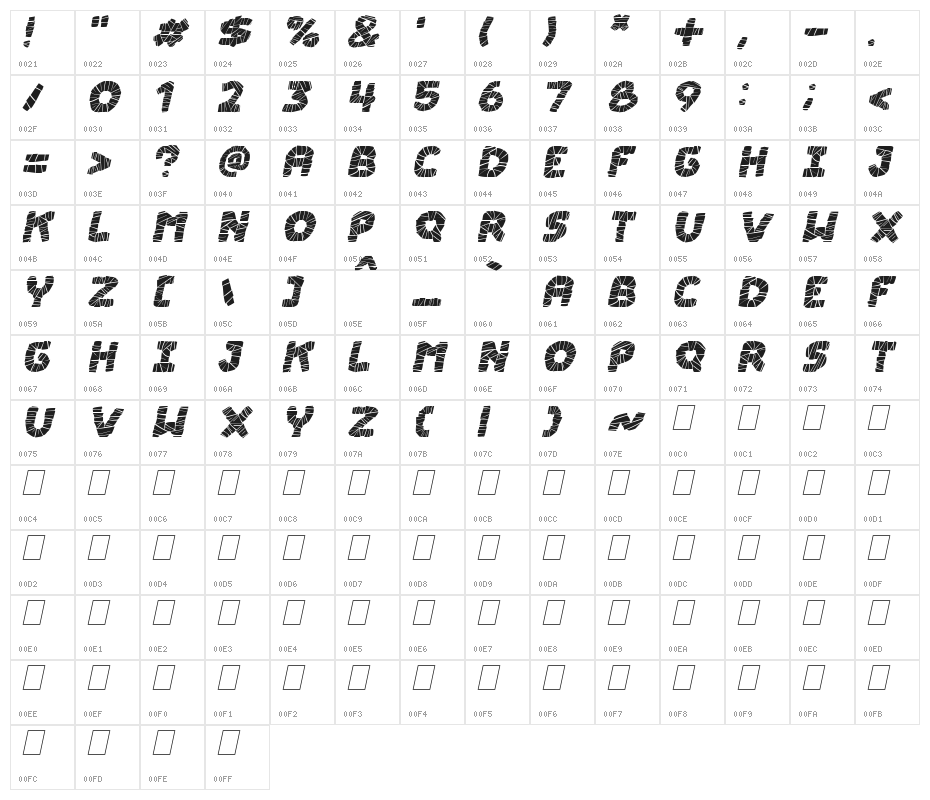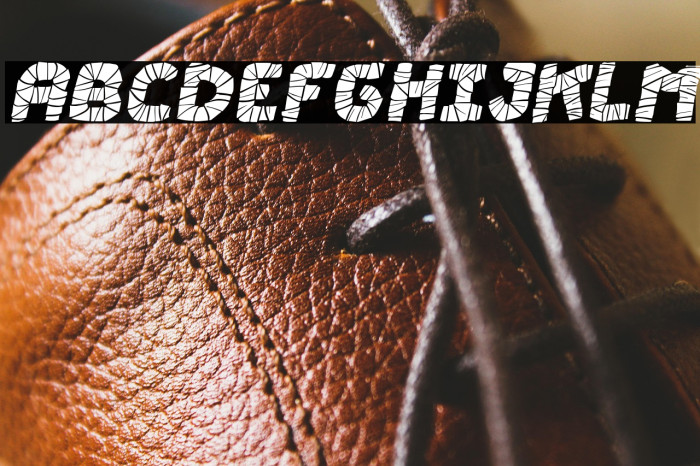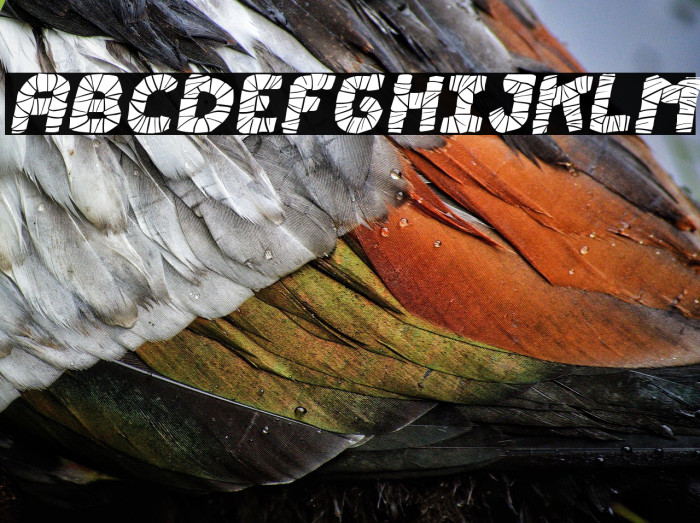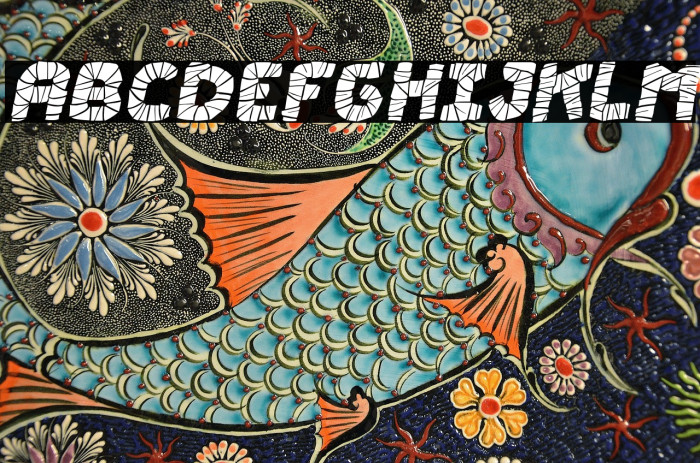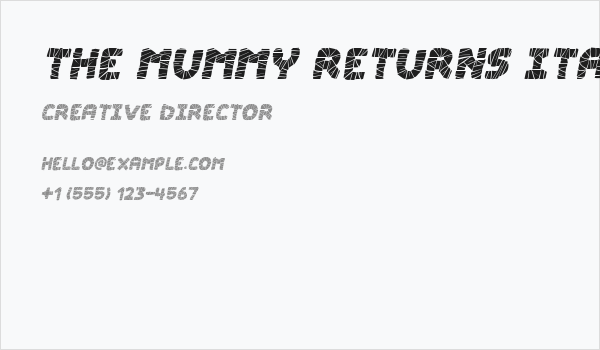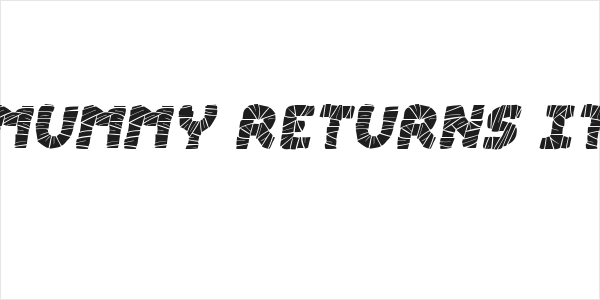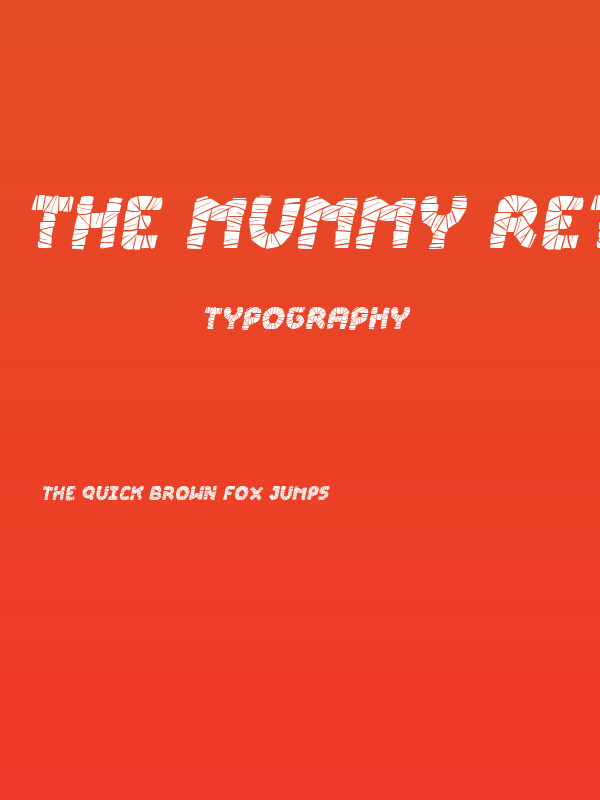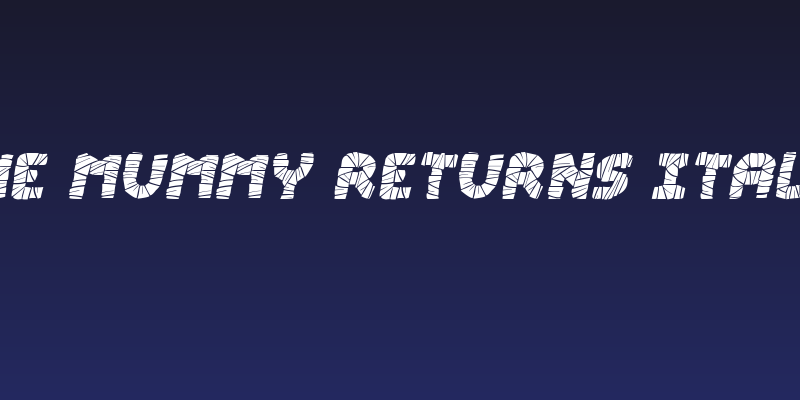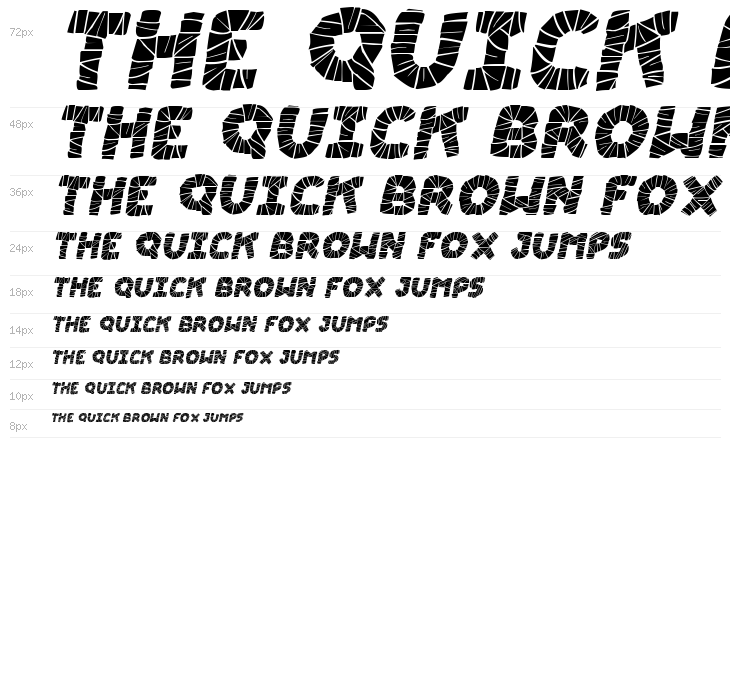
The Mummy Returns Italic Font
The Mummy Returns Italic Description
This font features a unique and bold design with a distinct pattern resembling bandages or wrappings, giving it a textured and layered appearance. The characters are italicized, adding a sense of motion and dynamism. The font is highly decorative, making it stand out with its intricate detailing. Each letter and number is crafted with a series of diagonal lines that create a cohesive yet complex visual effect. The style is reminiscent of ancient or mystical themes, making it ideal for projects that require a dramatic and eye-catching typeface.
Proposed ProjectsIdeal for movie posters, Halloween-themed designs, book covers, and branding for entertainment or adventure-related projects.